saba7 el 7′er!
Oh my, and isn’t it a good morning?
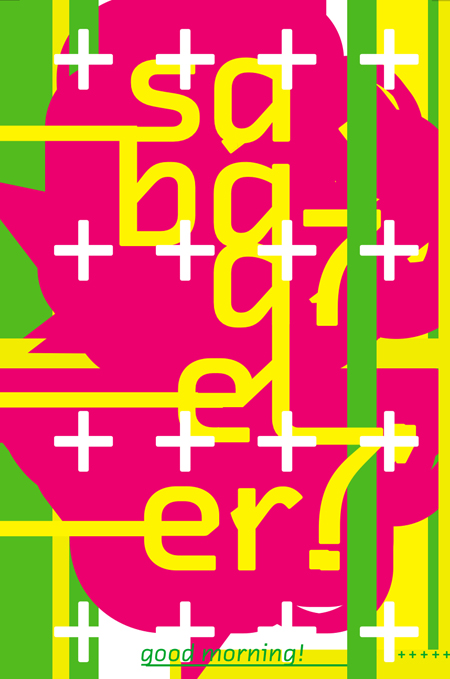
Above: MCAD student Josh, aside for a few hics and tics, not a bad sketch and certainly a very ohiogozaimasu! Fresh sketches from our yes we did Typography: Hierarchy + Expression grupetto.
Oh, and it is on!
Several of our groups are approaching this problem from varying degrees. Again relying on Verena Gerlach’s recent typeface, FF Chambers Sans, the students have tried to interpret our batch of Arabic cell phone type. These sketches were generated in a three hour period, so more time will yield a chance to spot various issues and improve upon them. We welcome any and all feedback, saba7 el 7′er!
Above: MCAD student Dan.
Above: MCAD student Eric, dibujada con un lápiz.
Manar, pour vous, je pense!
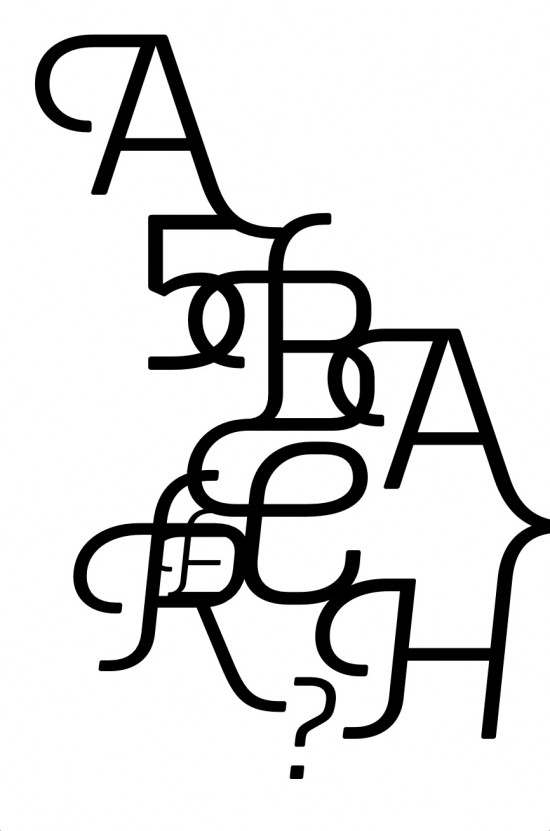
Above: MCAD student Emily.
Above: MCAD student Tousue.
Above: MCAD student Sarah.
Above: MCAD student Brendan.
Above: MCAD student Liam. Mash Allah, mes élèves,
a wonderful beginning.